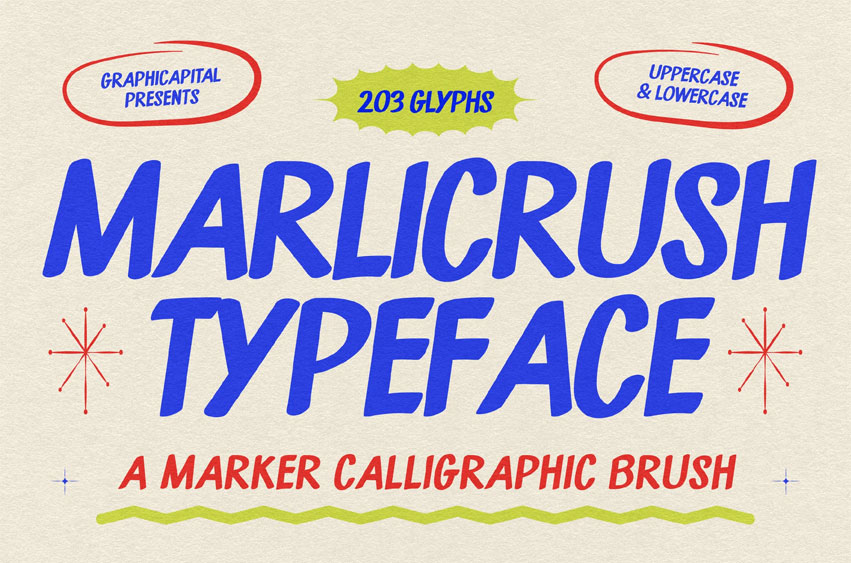
Marlicrush Font is a marker-style calligraphic font with natural, expressive strokes. Its lively and dynamic feel is perfect for titles, posters, brand identities, and creative design projects.
Ideal for branding, posters, headlines, packaging, album art, game visuals, and promotional designs. It adds personality to any creative project and helps your message stand out effortlessly.